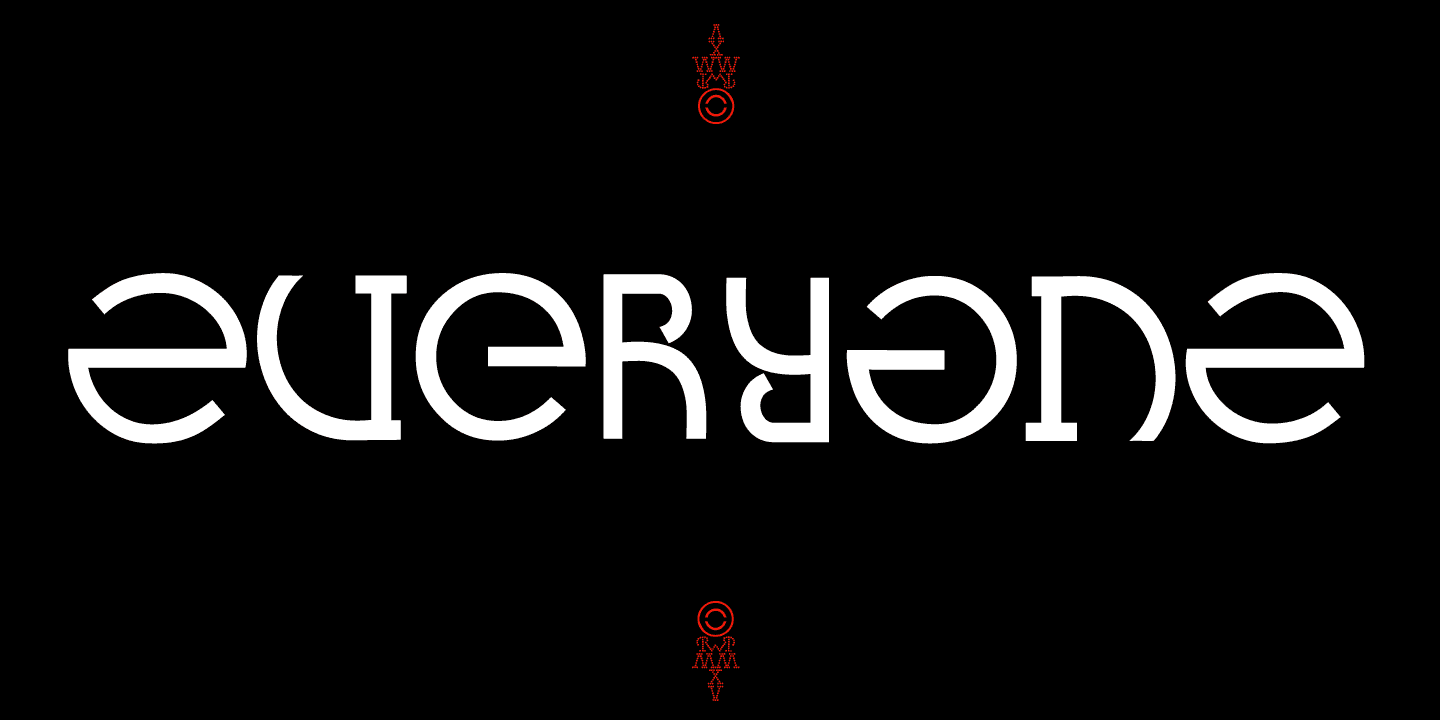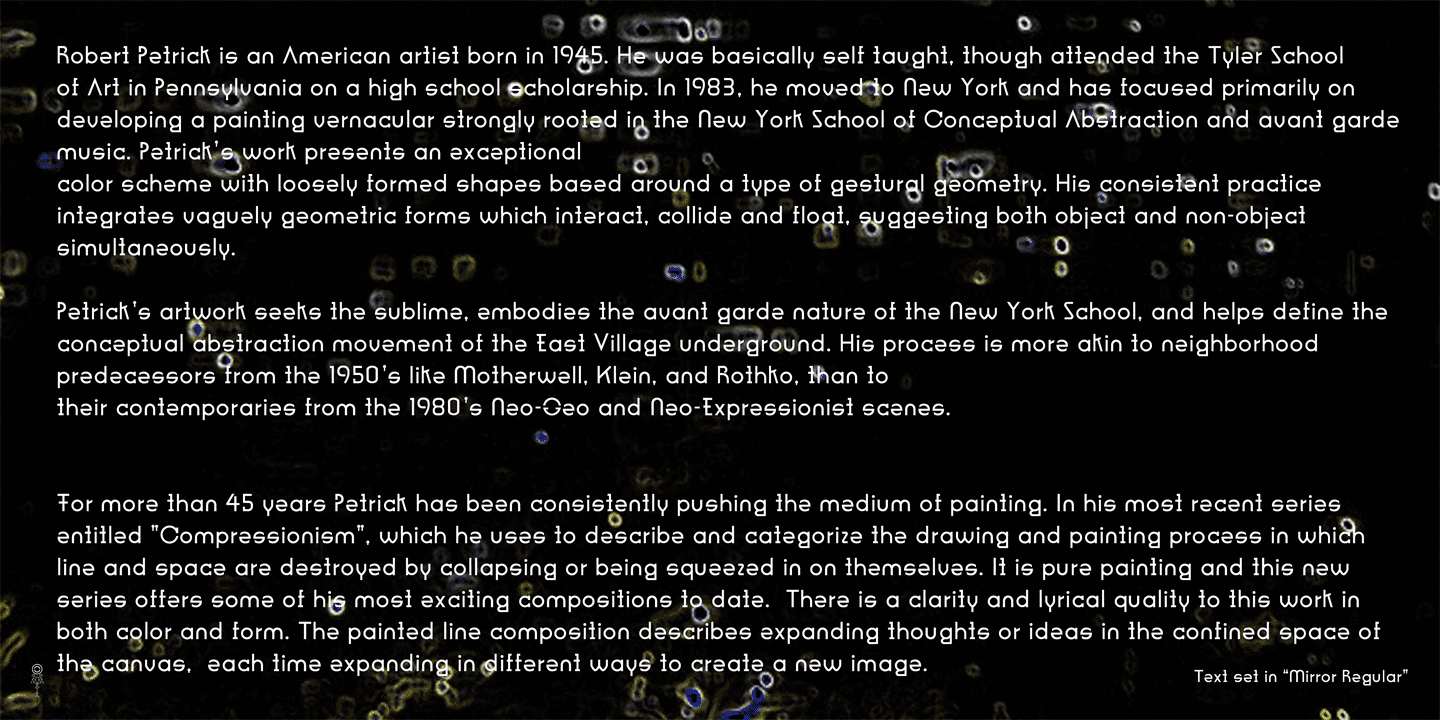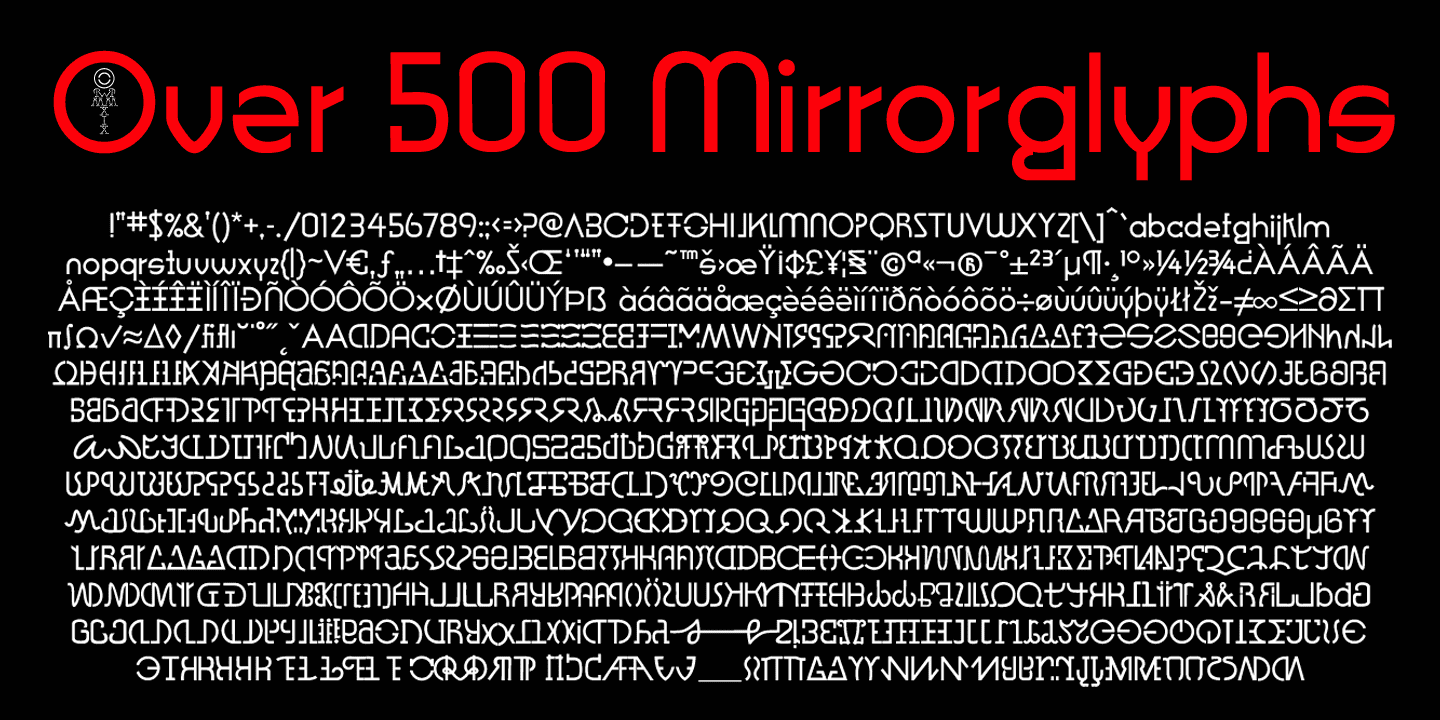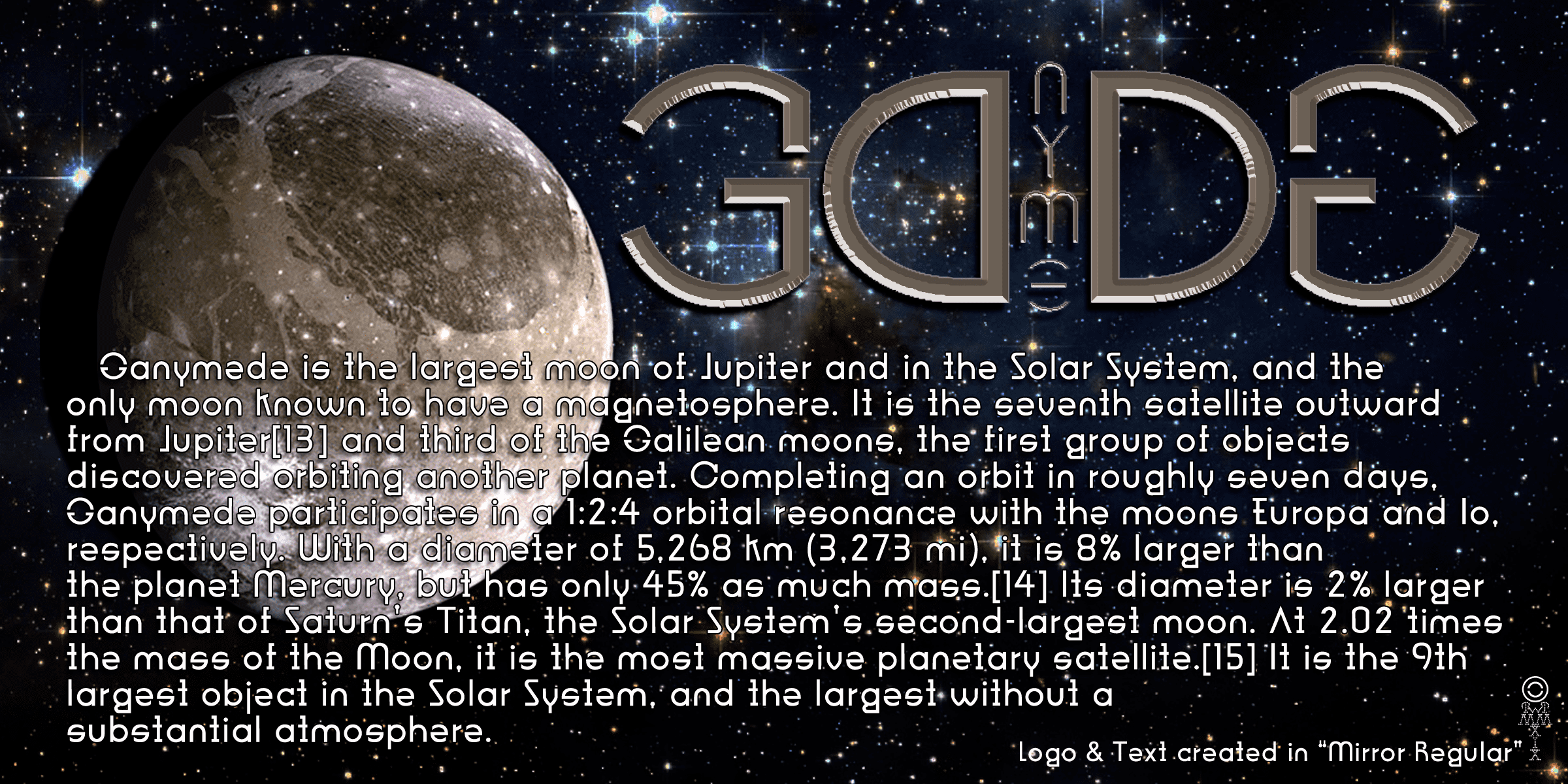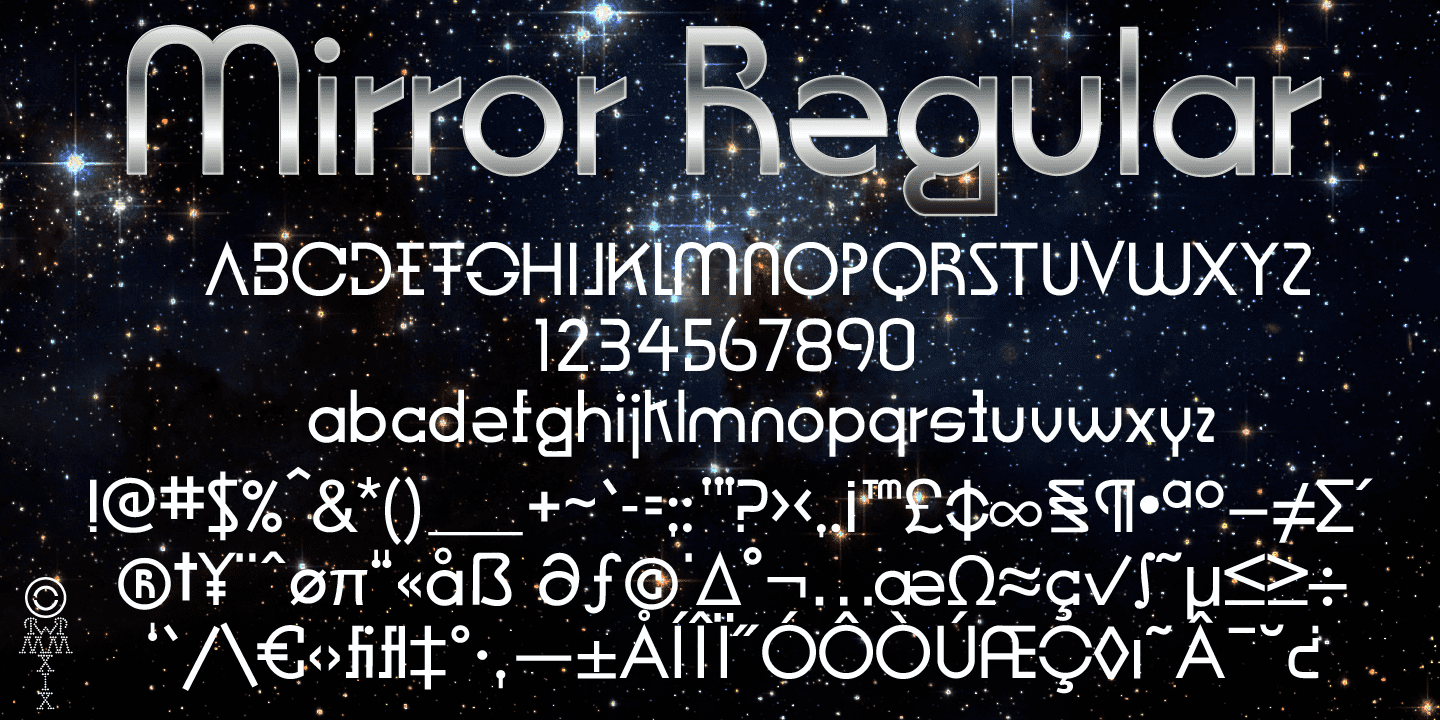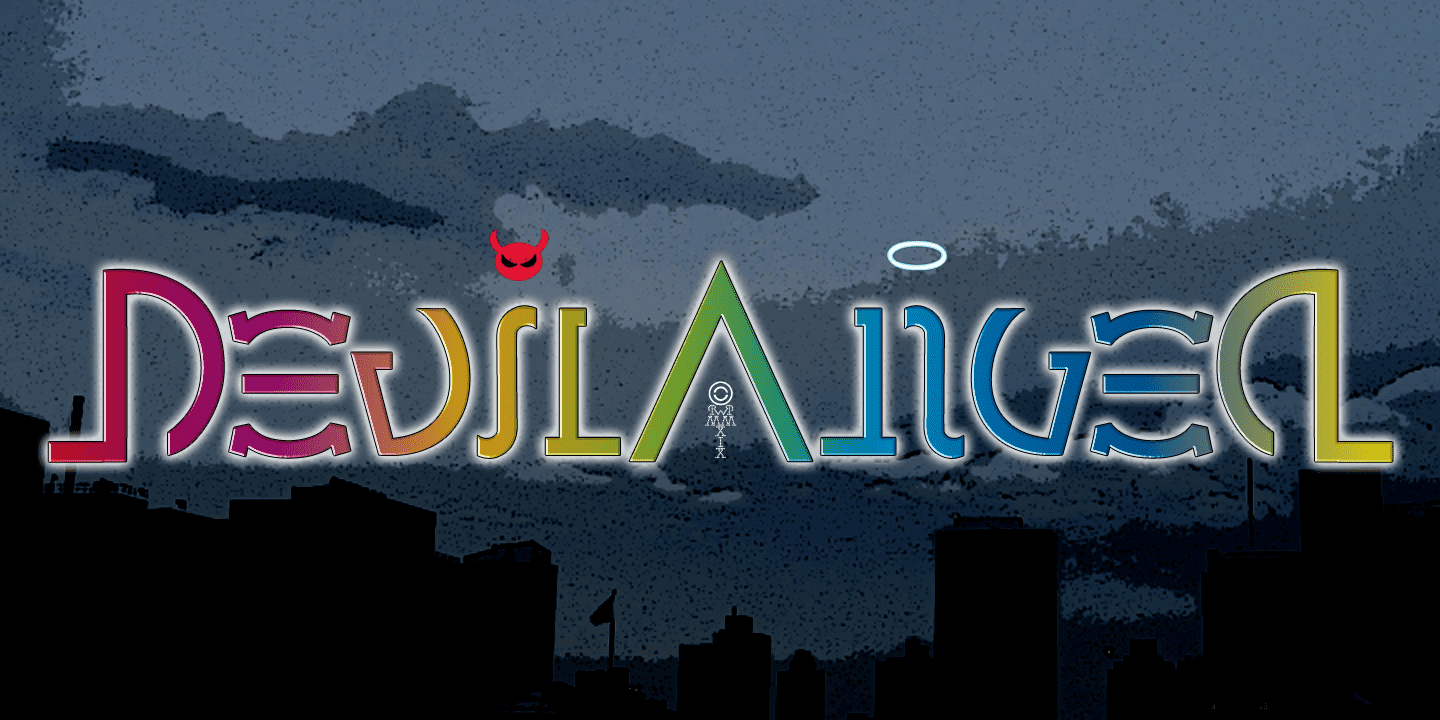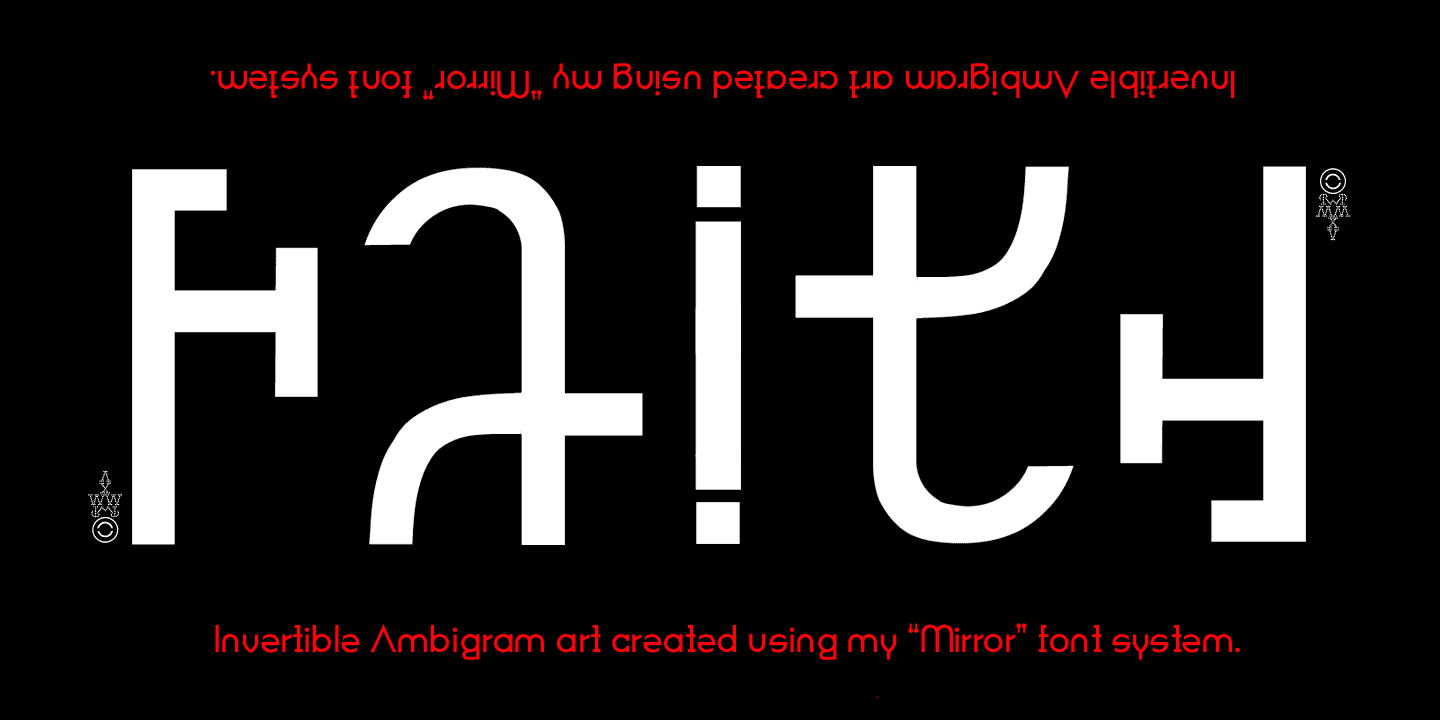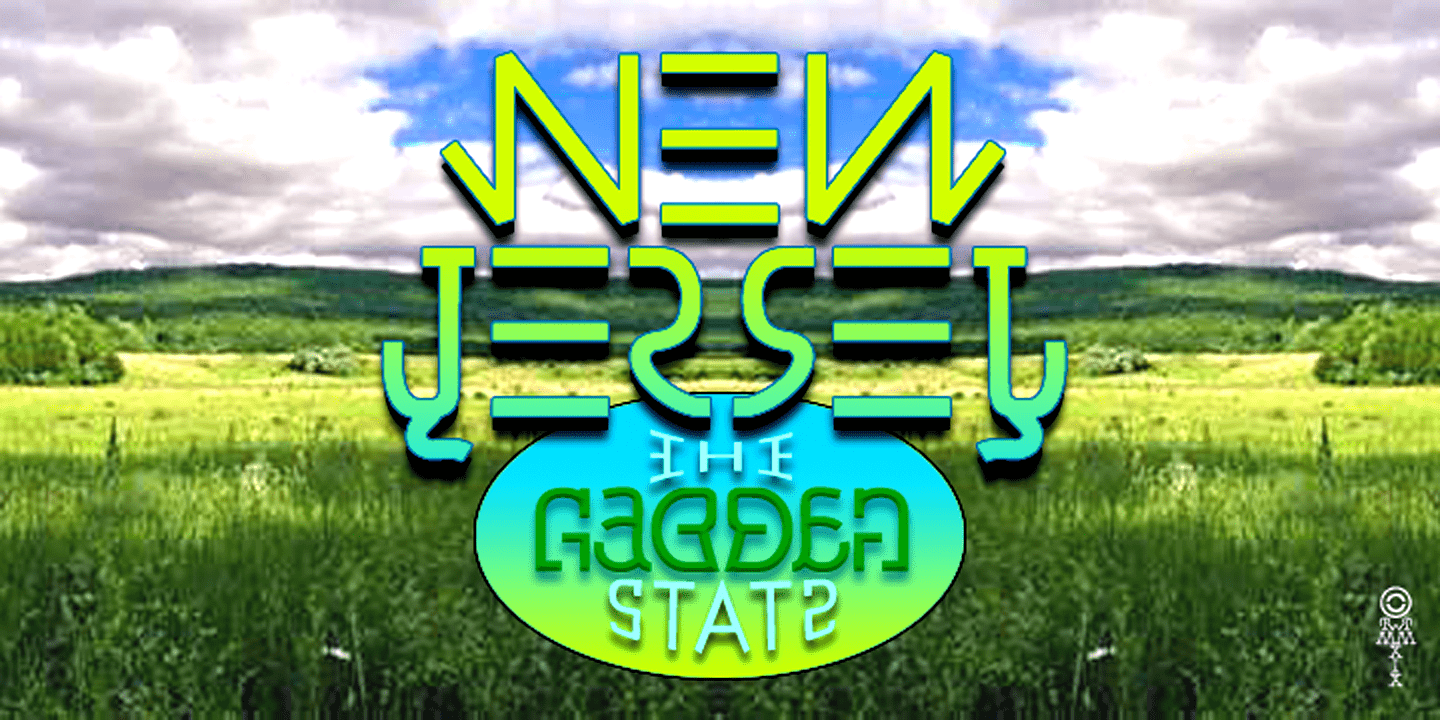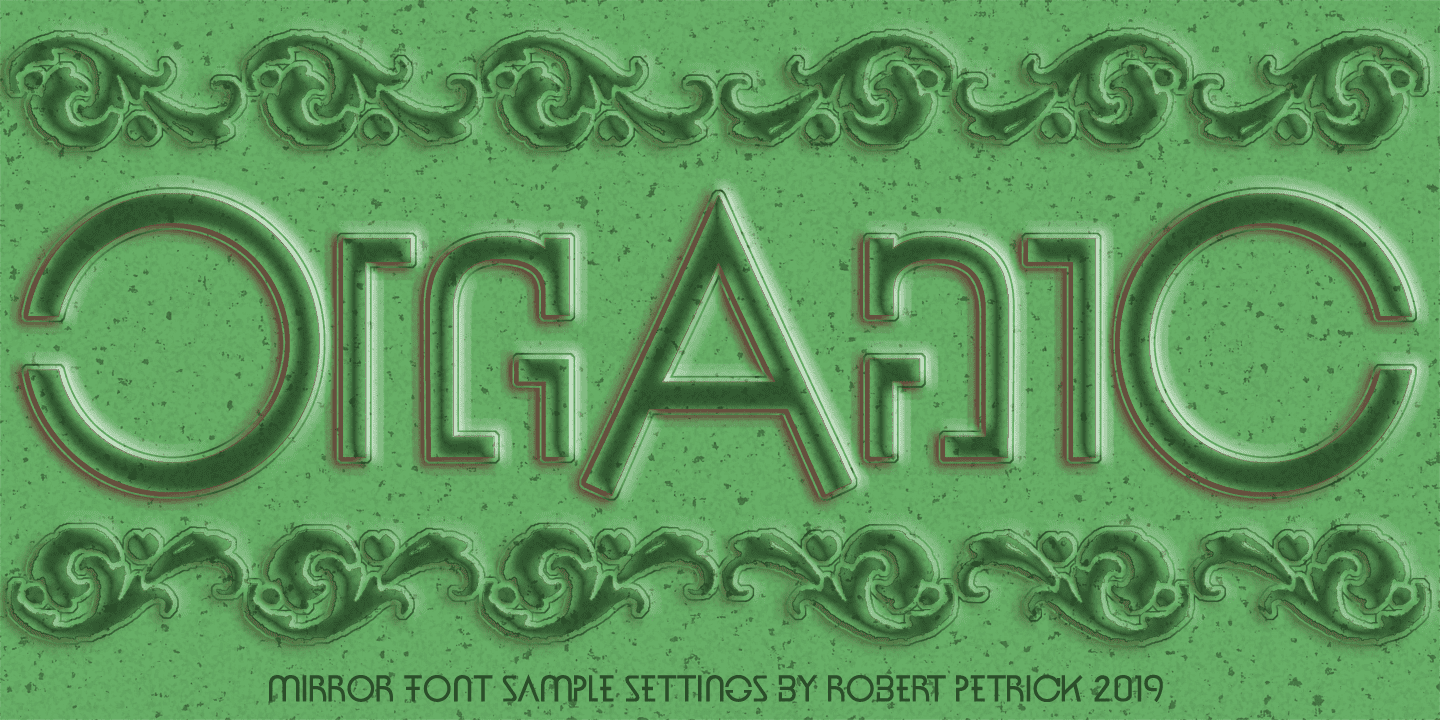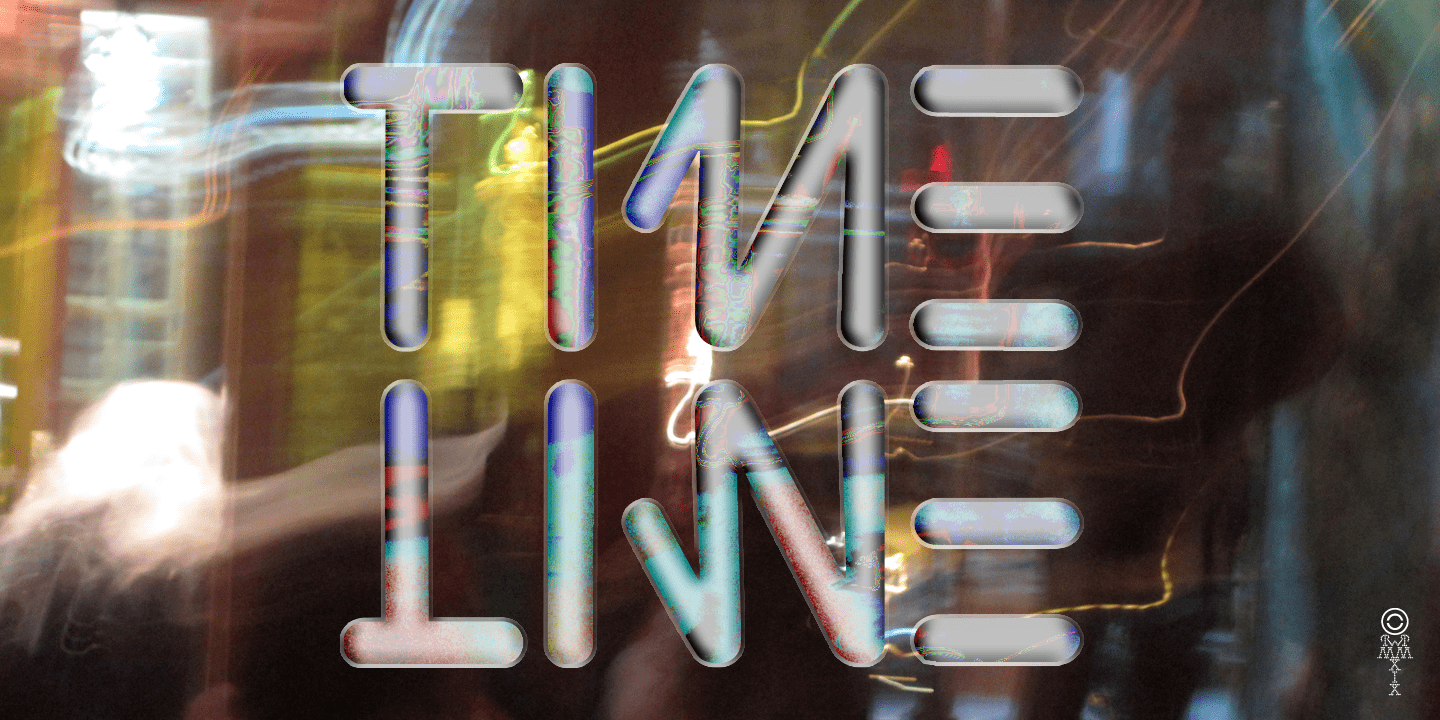
Mirror (1 font)
From Robert W. Petrick
“Mirror” font was designed for two reasons.
1. I wanted to make a font system not just a font that would help designers to use their imagination and enjoy the use of my letter form and mirror glyph ligatures. Best accessed in Illustrator.
2. I wanted to create a Functional new font that would add to your repertoire of new faces. The font is modern, fun and easy to set with unique new character design.
About Robert W. Petrick
Designing for over 30 years, Robert Petrick works from his studio in New York's East Village. His love of letterforms is the basis of his graphic design. Petrick creates logos, fonts, illustrations and Ambigrams. His first important Ambigram "Angel" was created and published in 1976. Petrick's most famous font, Blowfish™ is the branding font used on the Sour Patch™ candy packaging.